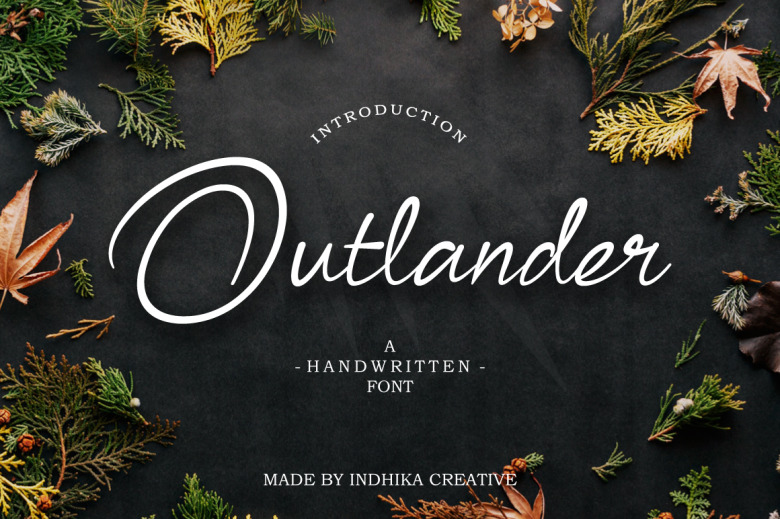
Outlander Font
Here’s an elegant script font that drips with Handwriting: Outlander! Now all your best imaginative work can not fail — try adding this font to it you’ll be amazed at the difference inquality produced by its presence. This font is PUA encoded: that means the glyphs and swashes are all easily accessible for you to enjoy!
Outlander Handwritten Script Font